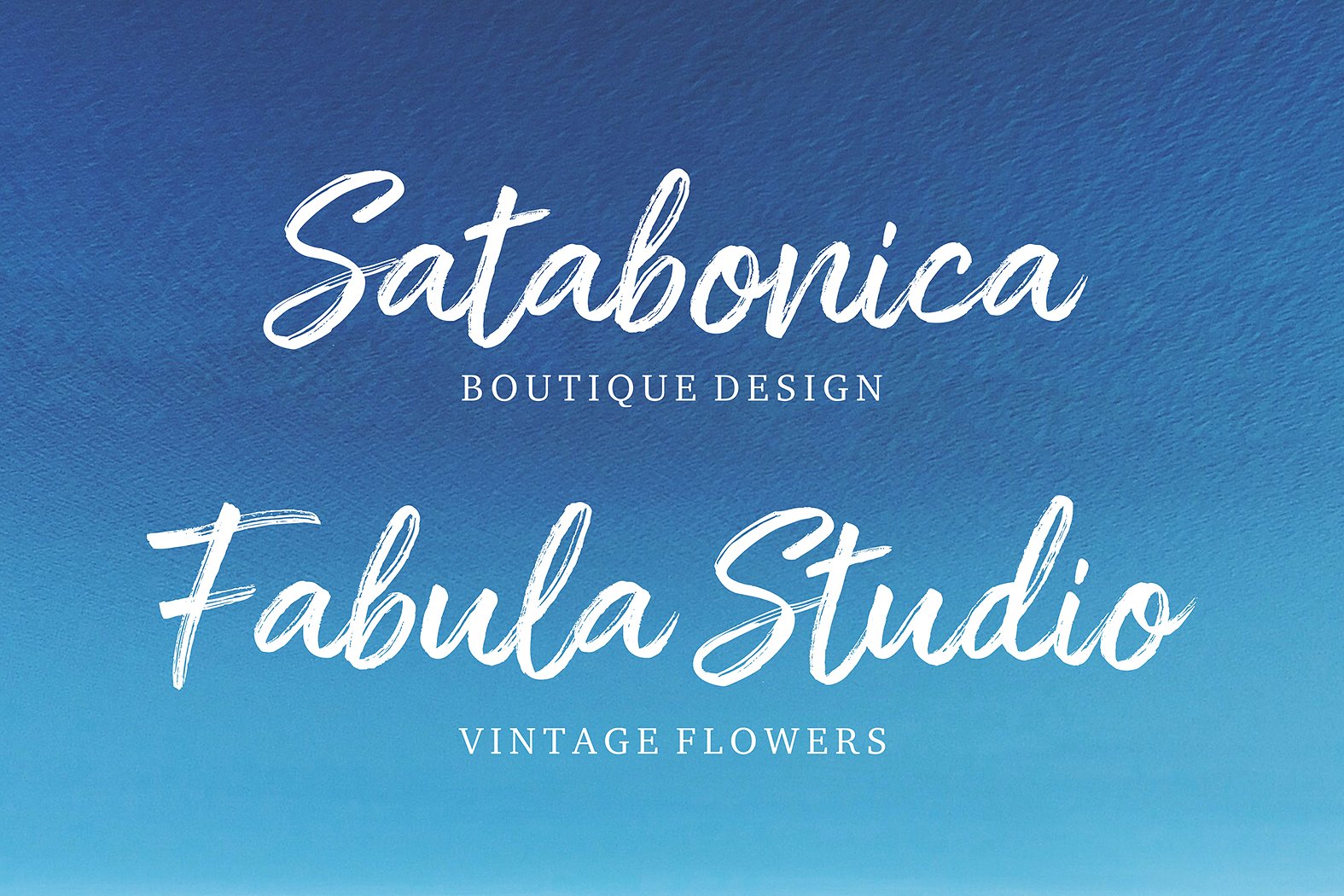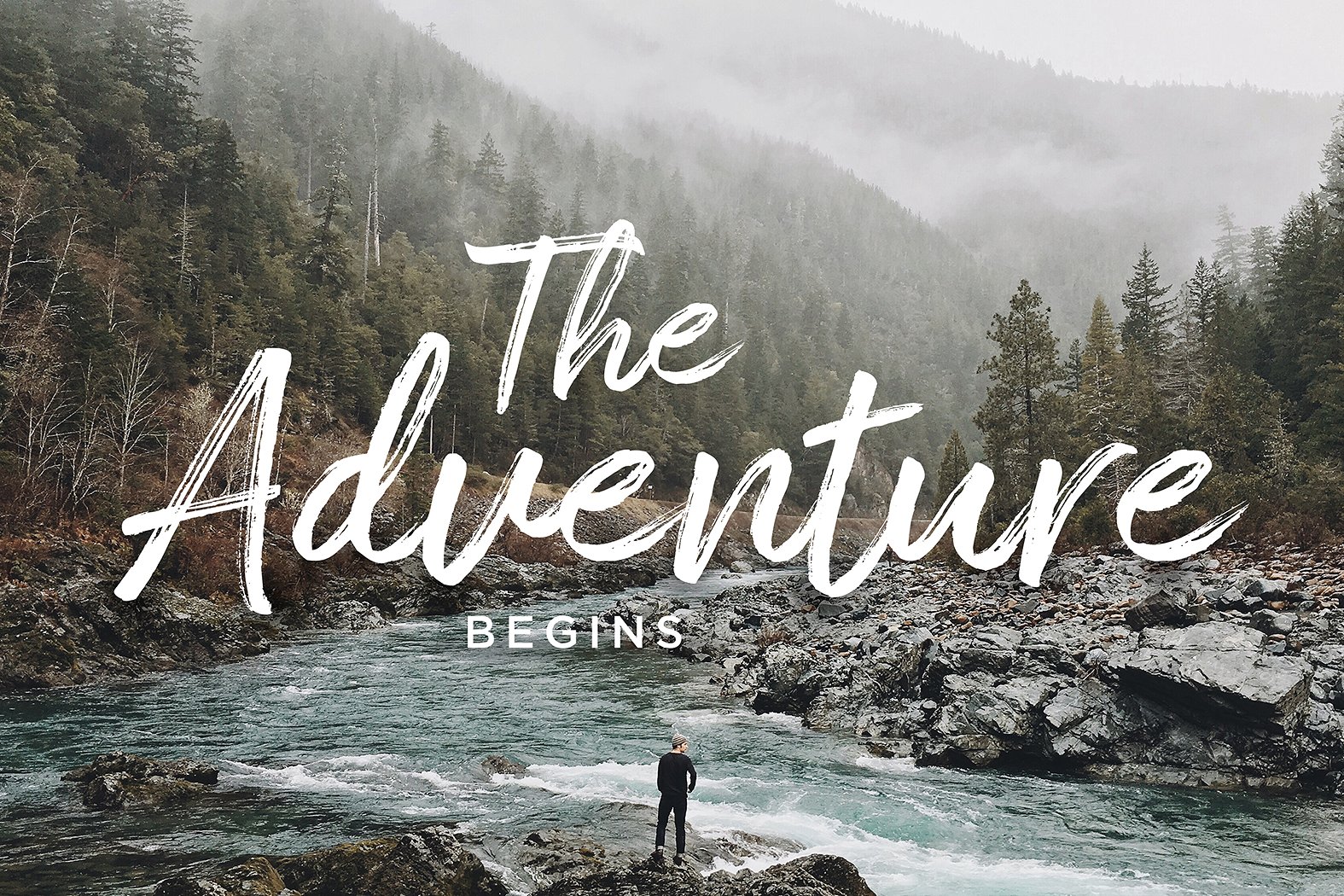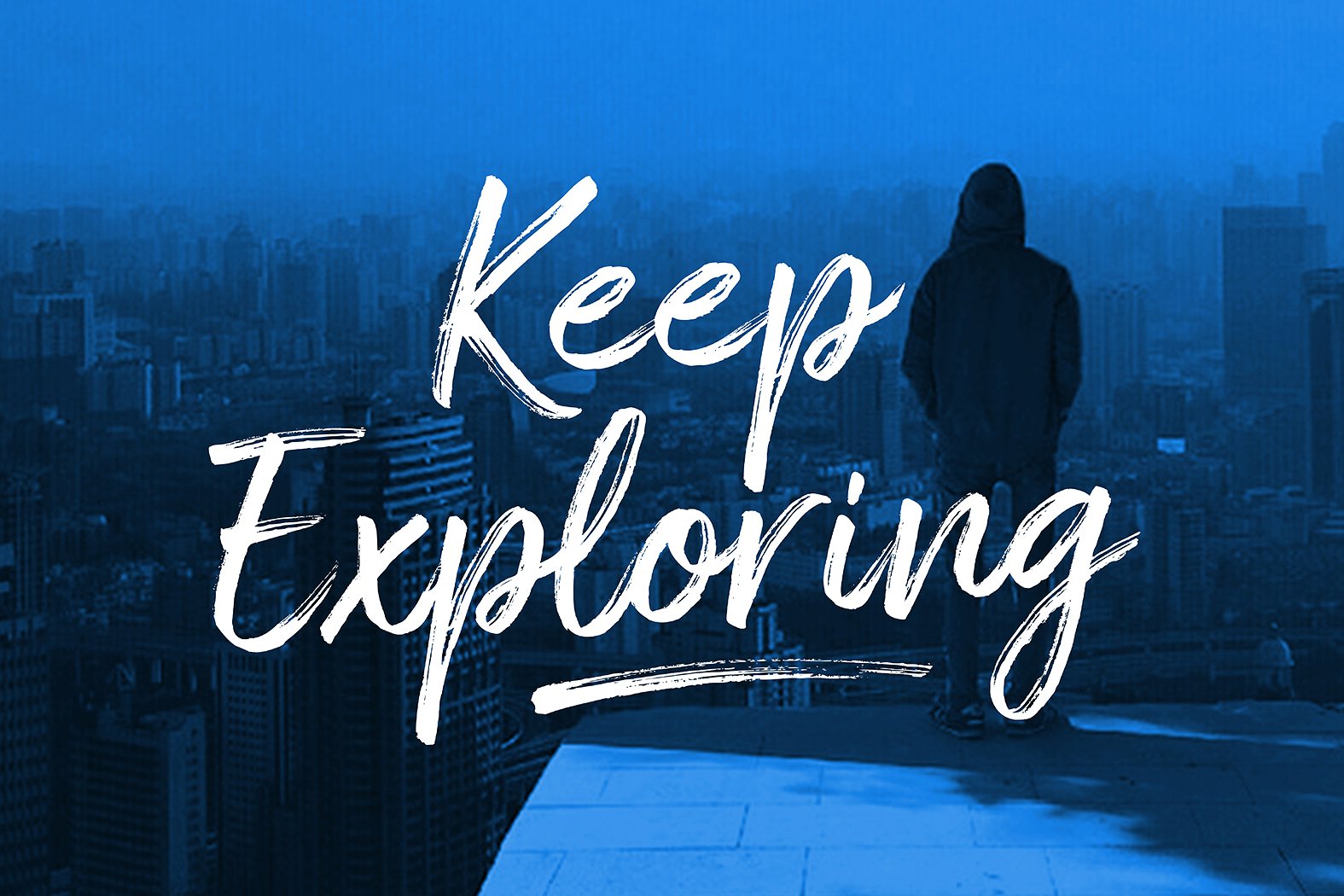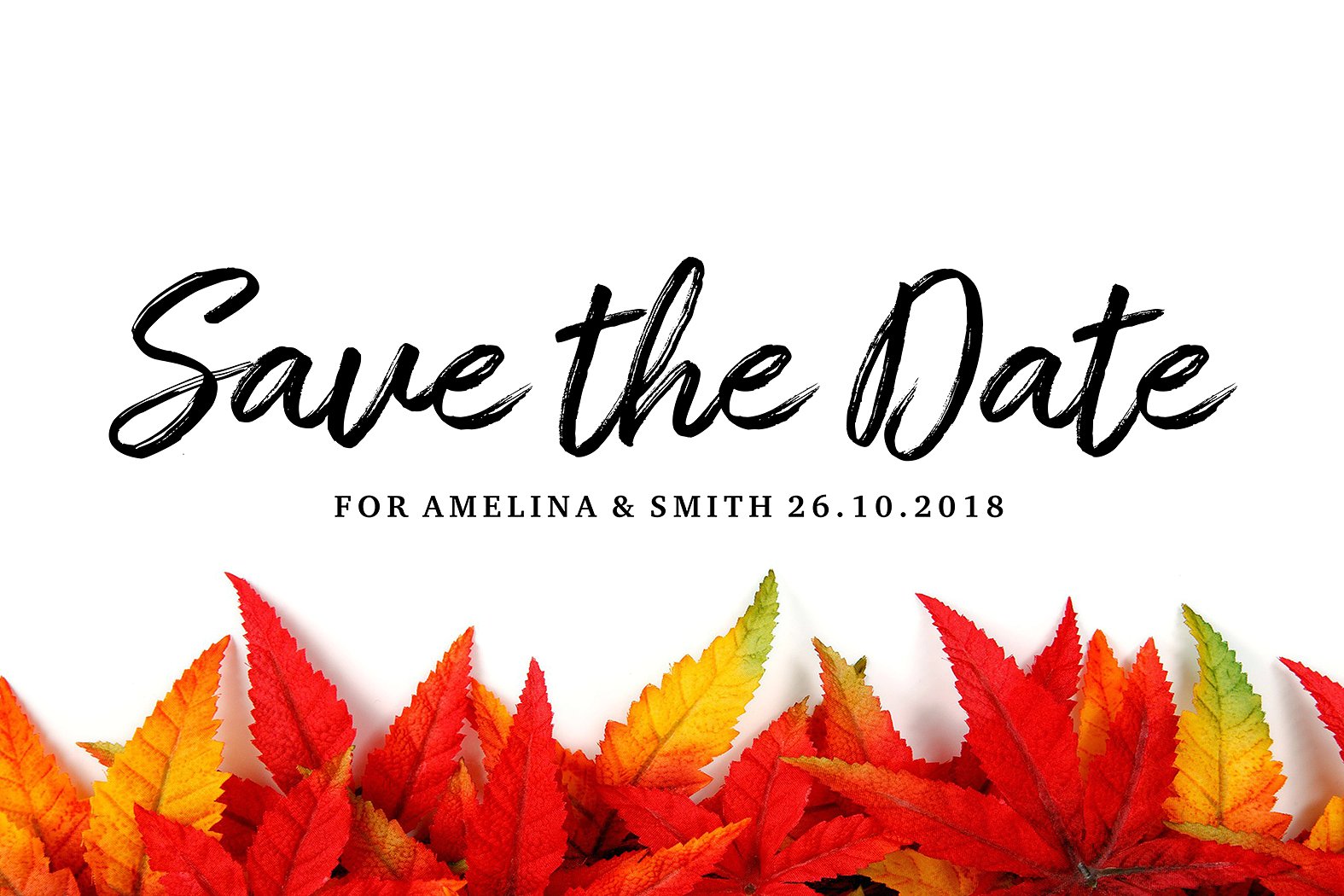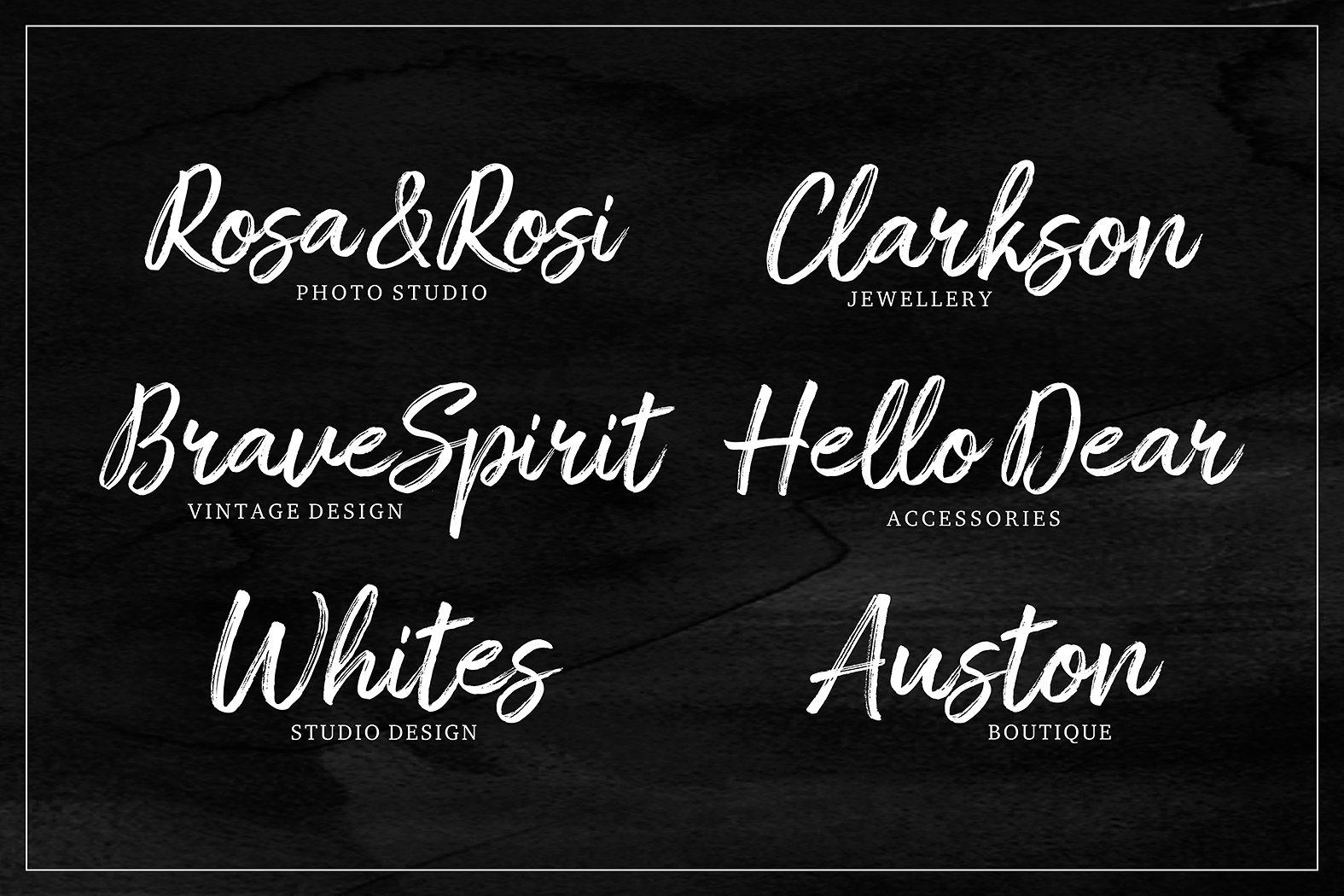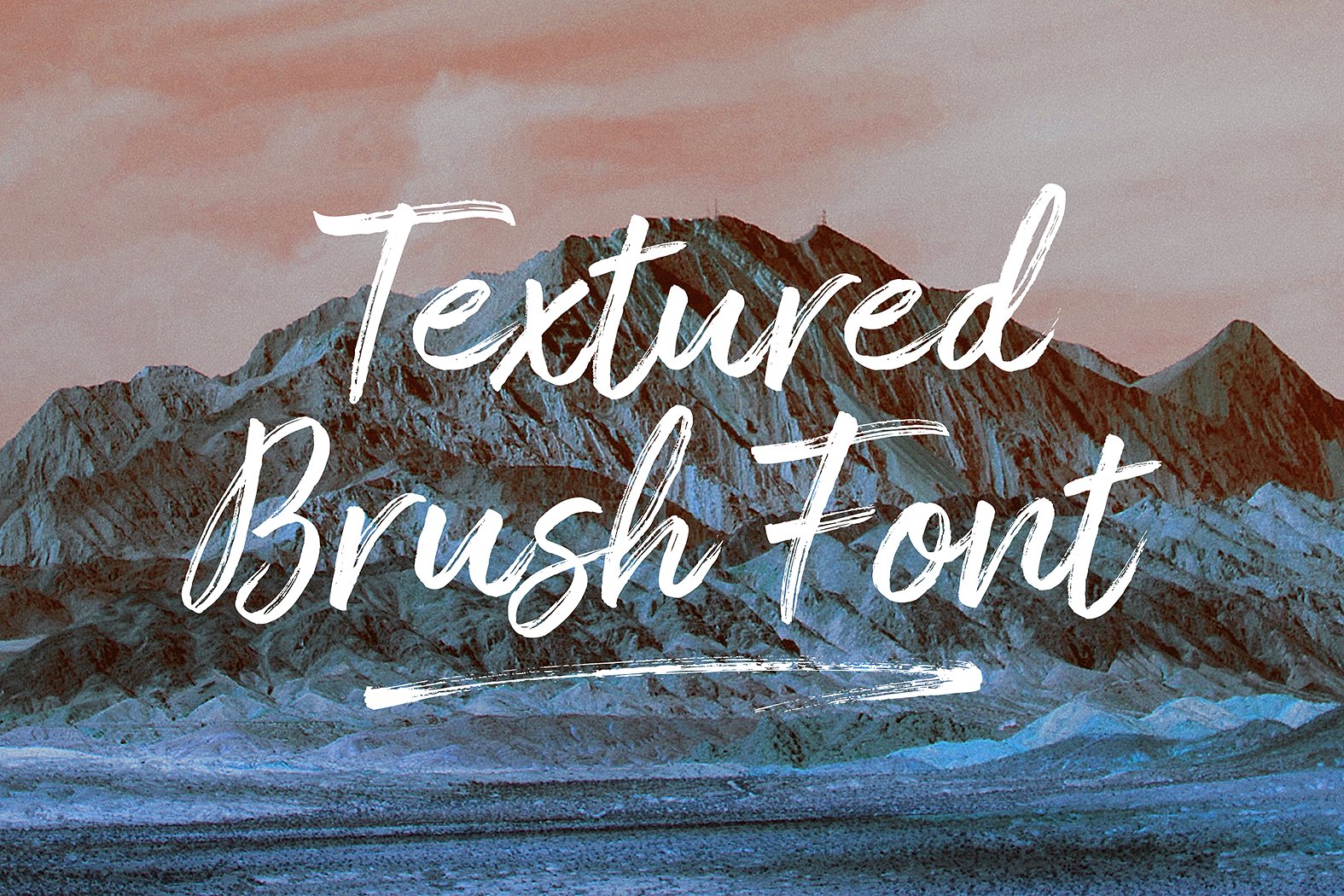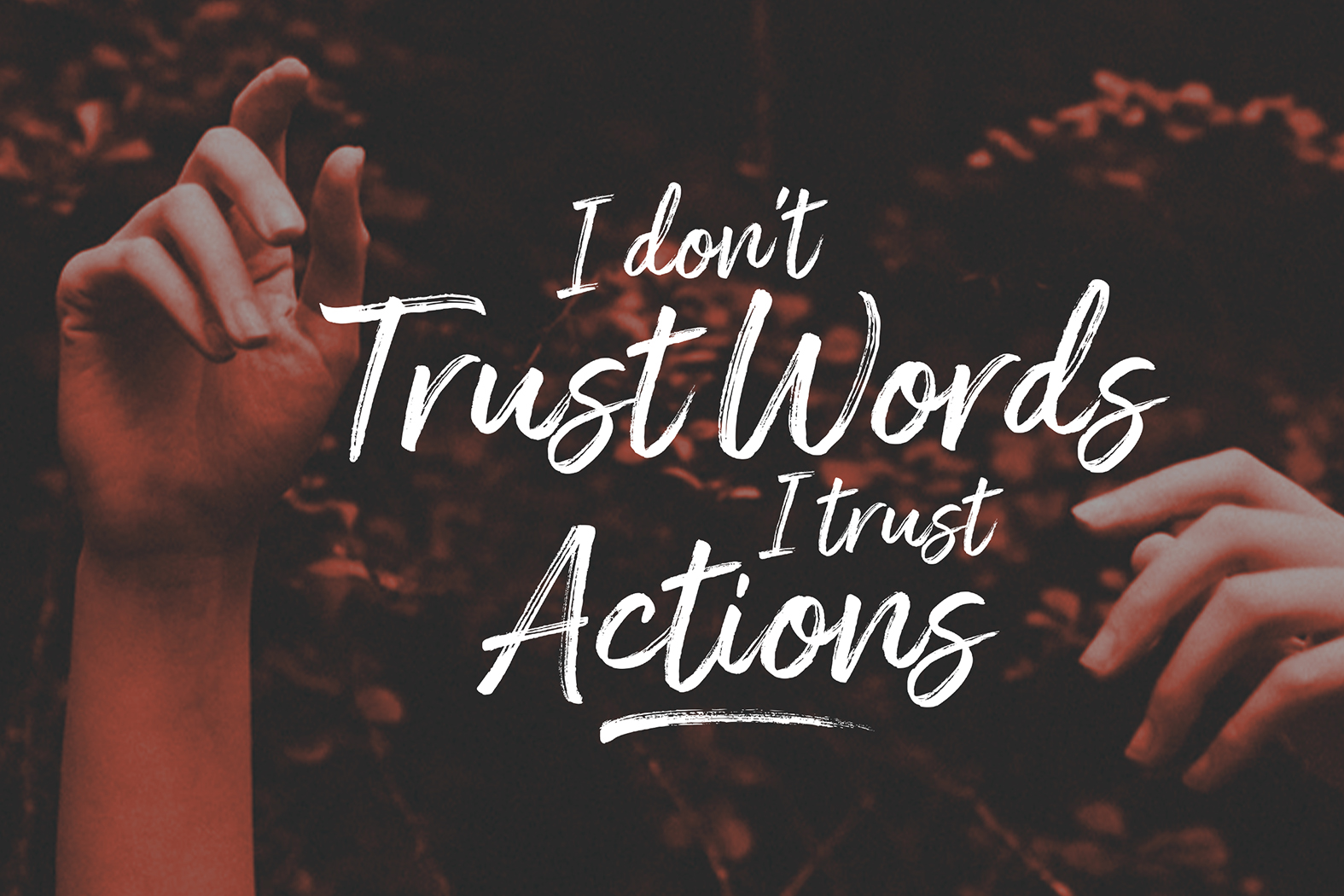
Amithen Font
About Amithen Font
Amithen is textured brush font using a contemporary approach to design. Handmade naturally with an irregular baseline, Amithen is suitable for a number of display or decorative designs.
Don’t limit yourself: Amithen Brush can be used for various purposes, a